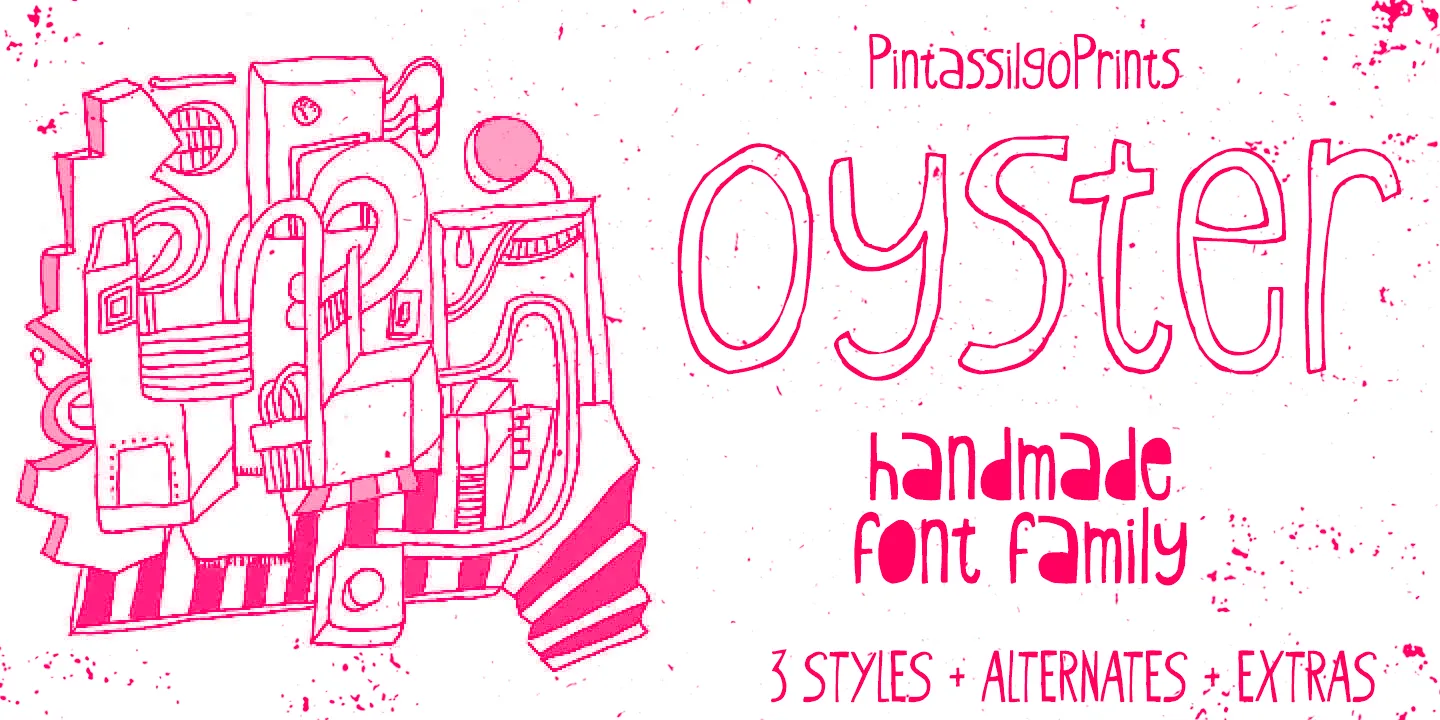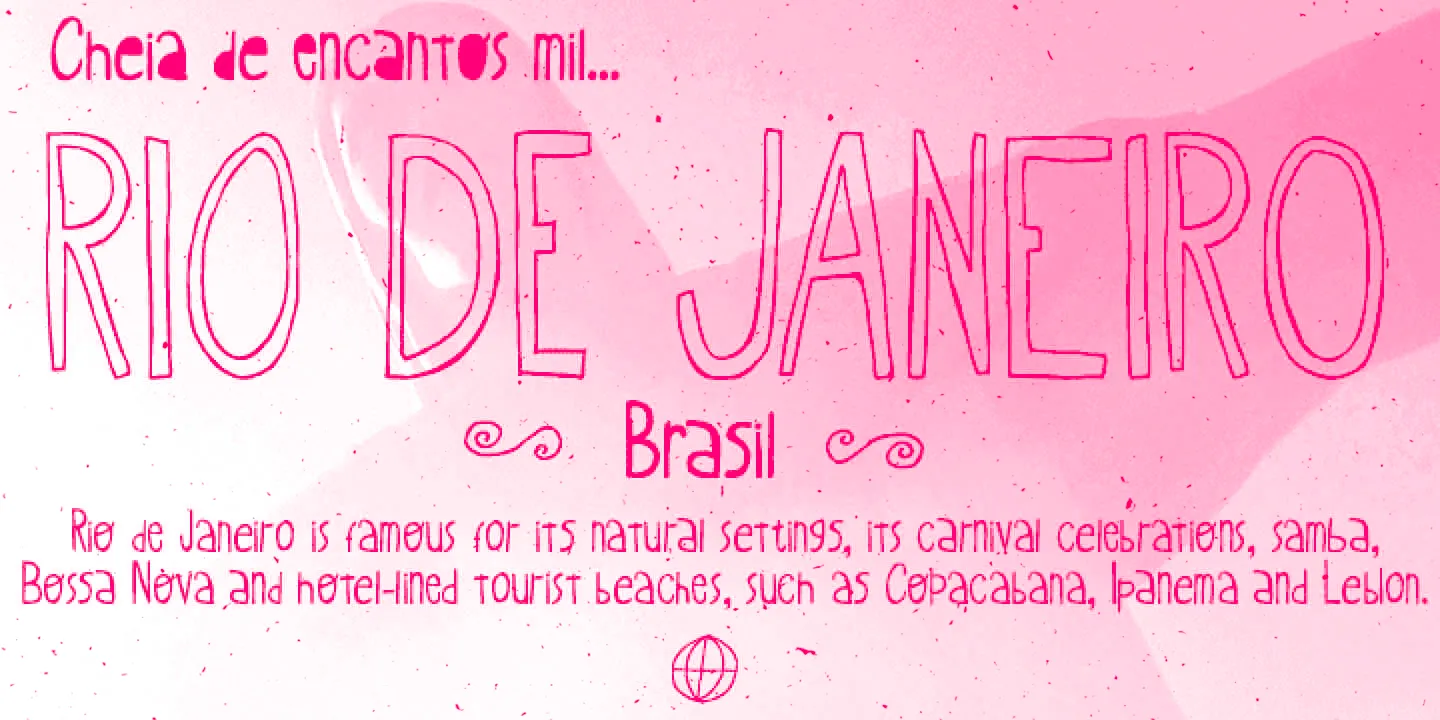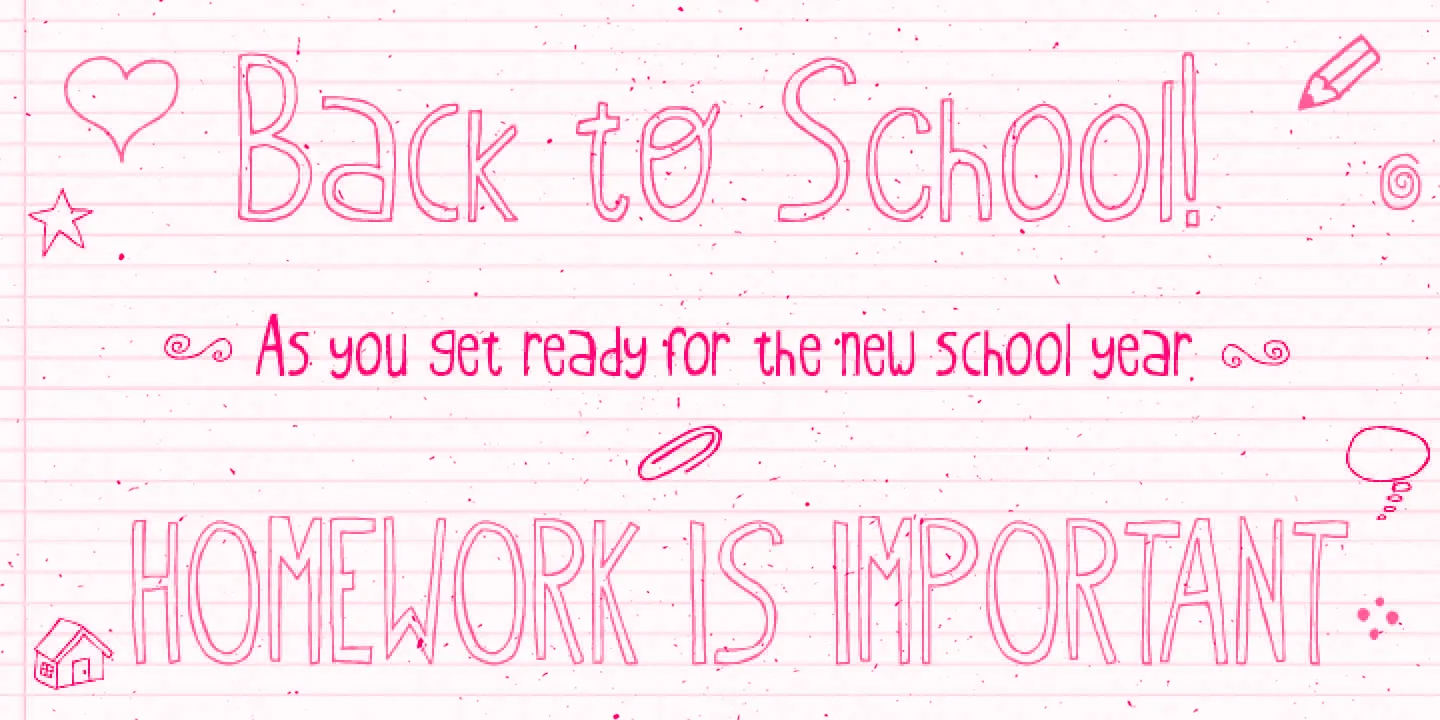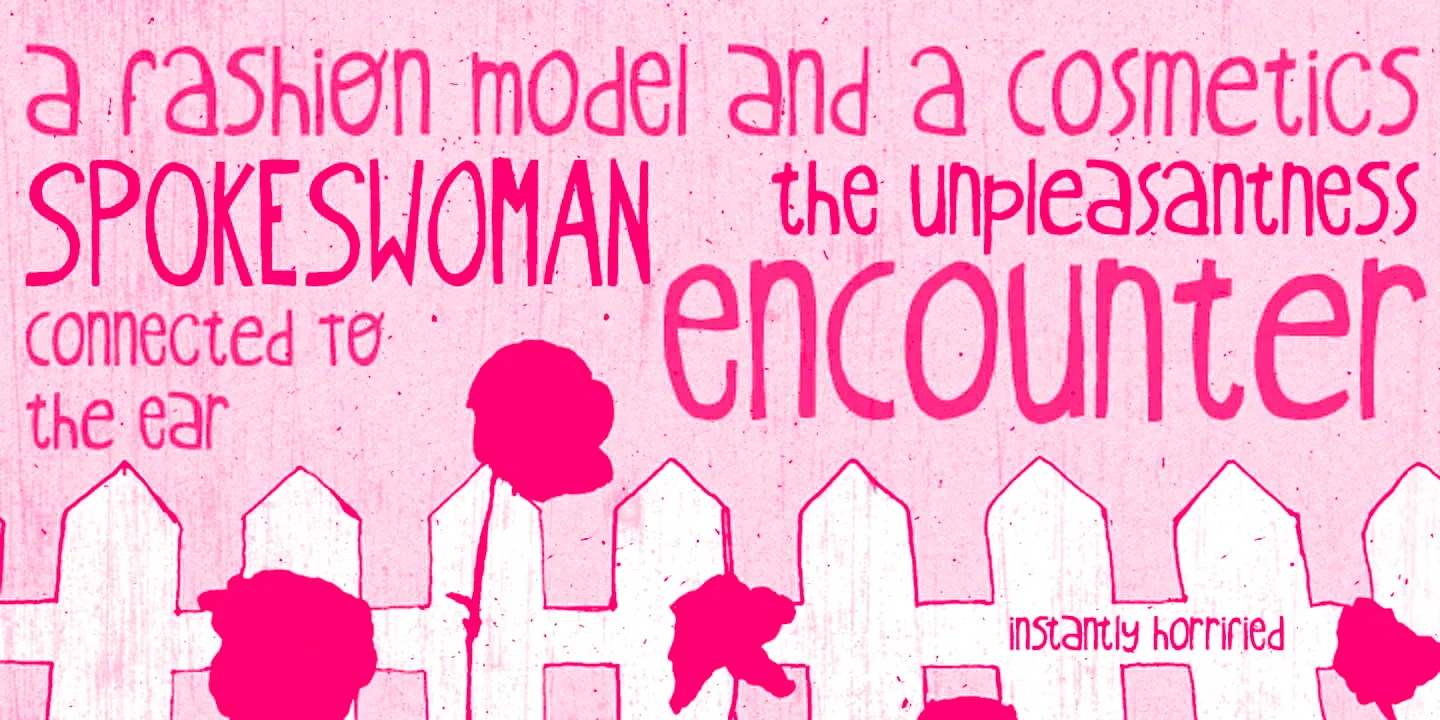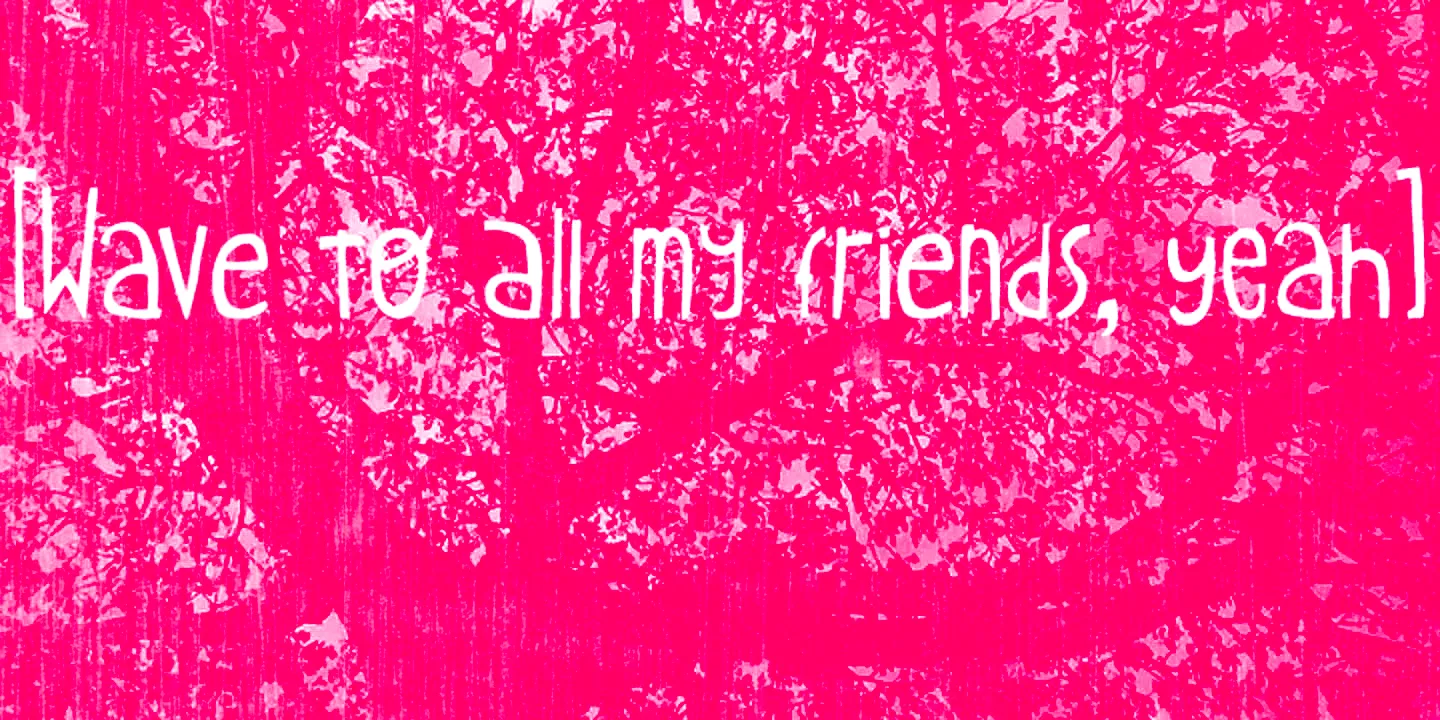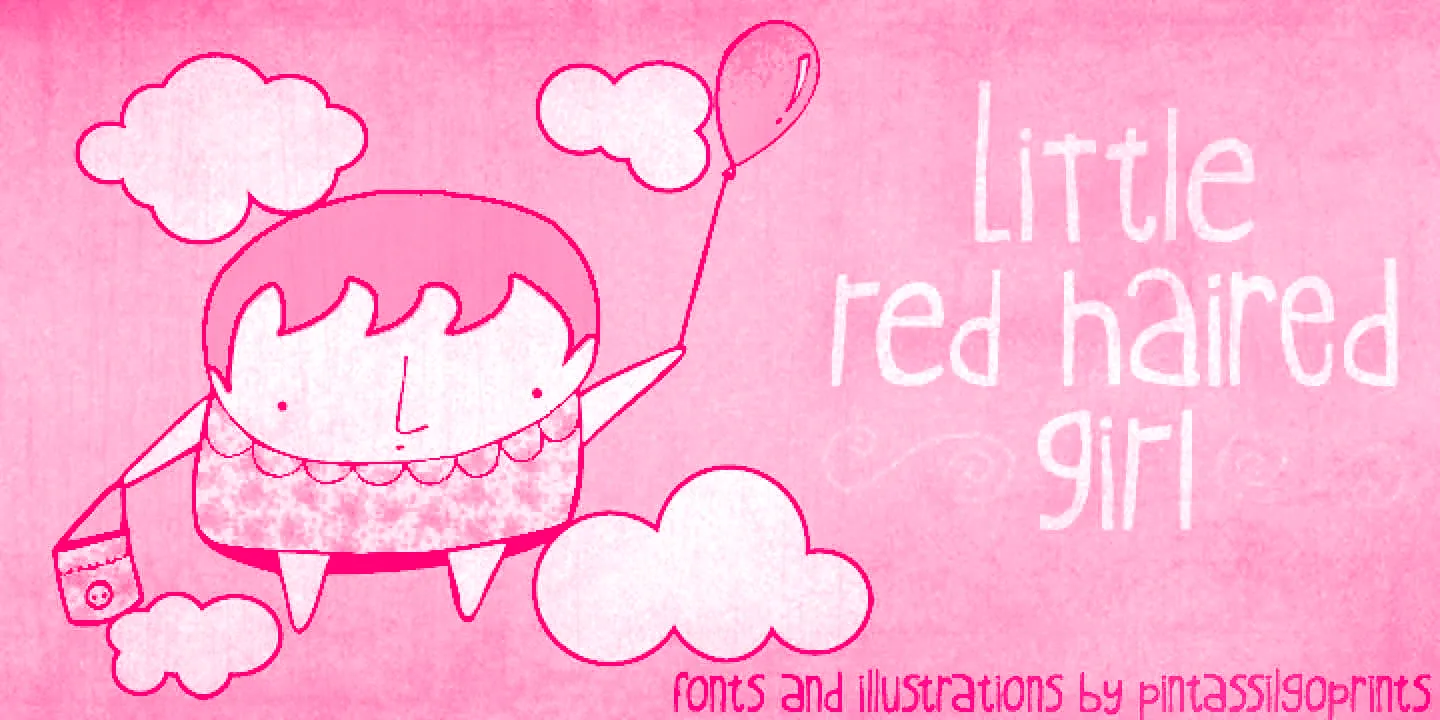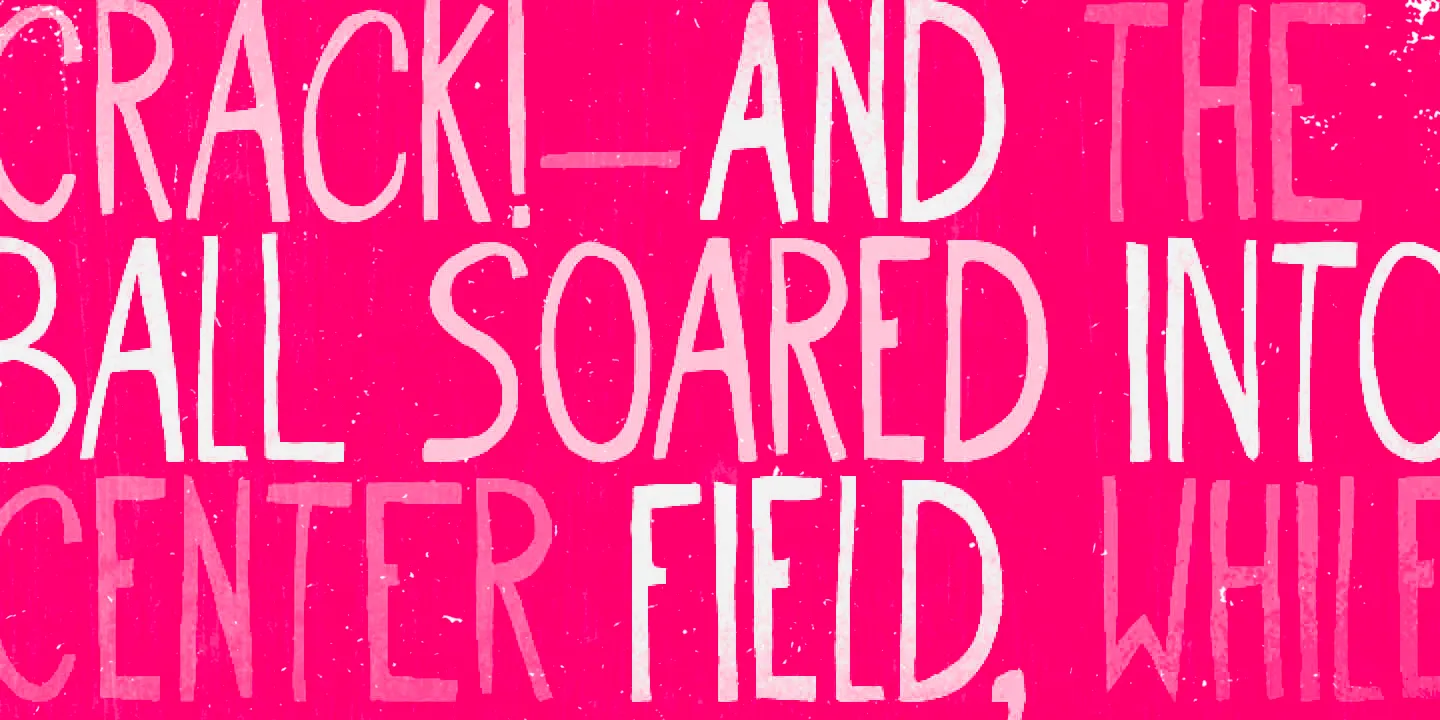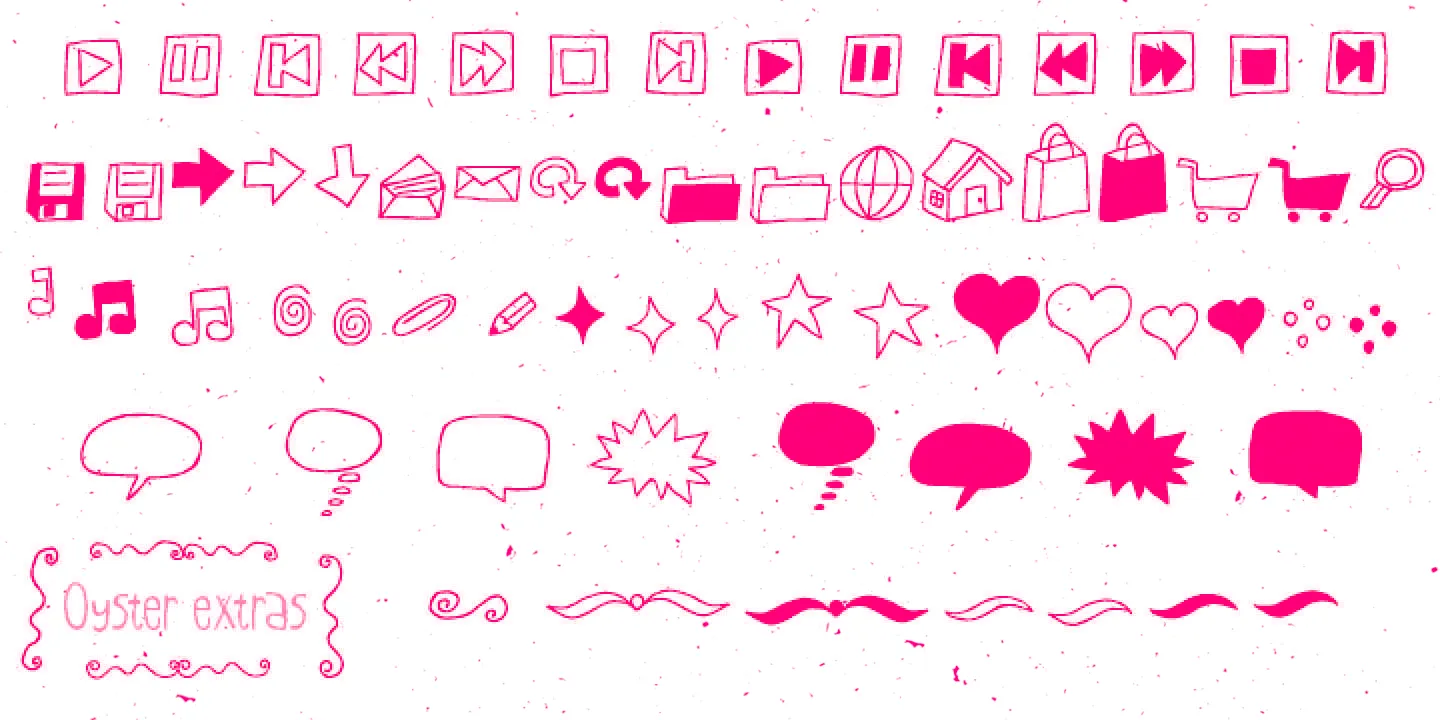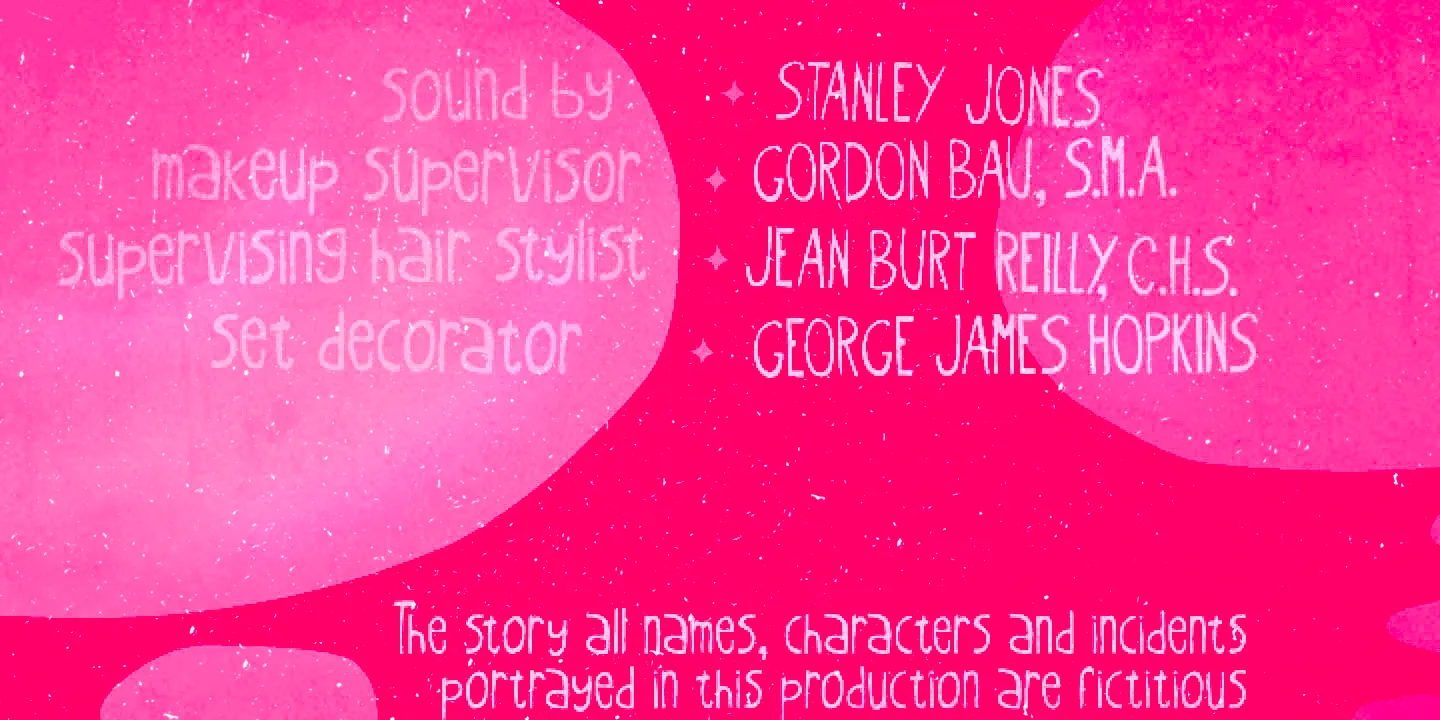
Oyster
Oyster is an oddly affable, hand-drawn, slightly wonky font family. It’s a super casual and somewhat messy font that comes in two flavors — Regular and Outline — providing visual contrast, particularly if the alternates are used. While the Extras add whimsical dingbats, icons, and ornaments to complete the look. Ideal for giving a breezy, imaginative vibe to packaging, children’s books, branding, or any project seeking hand-lettered charm and light-hearted sophistication.
- Discretionary Ligatures
- Fractions
- Ordinal Numerals
- Stylistic Alternates
- Stylistic Sets
- Superscript